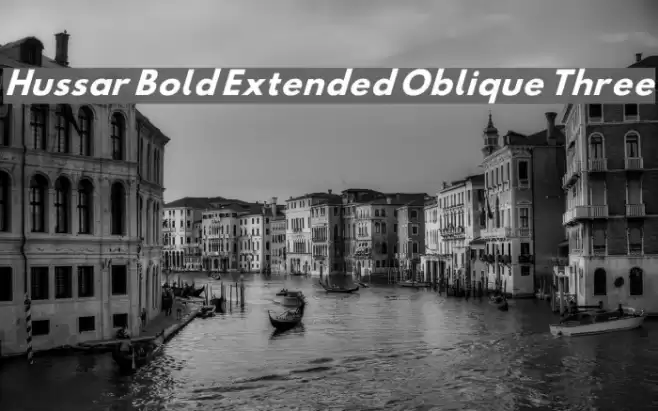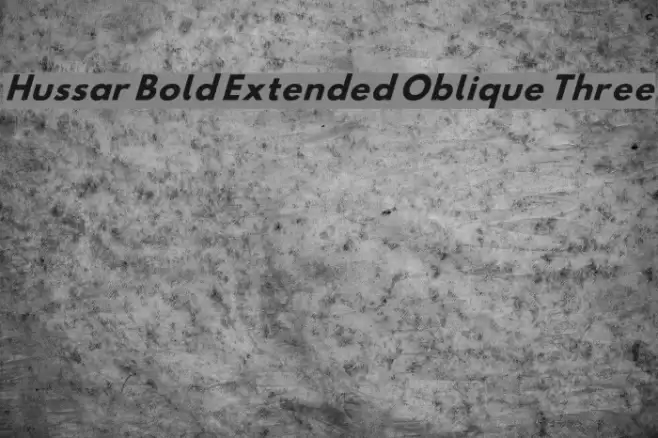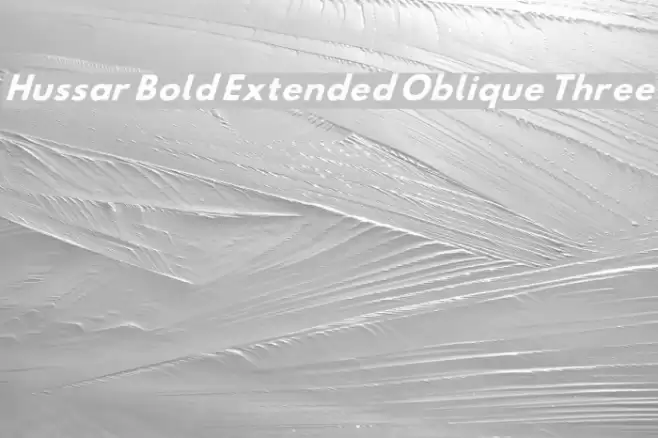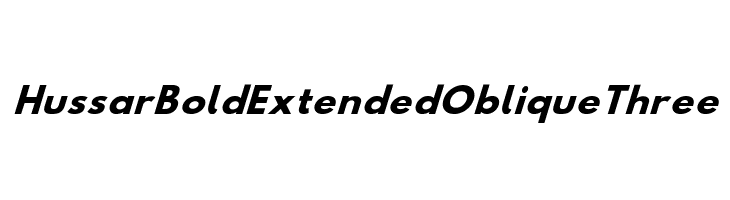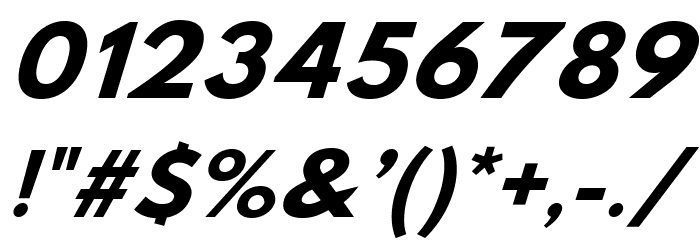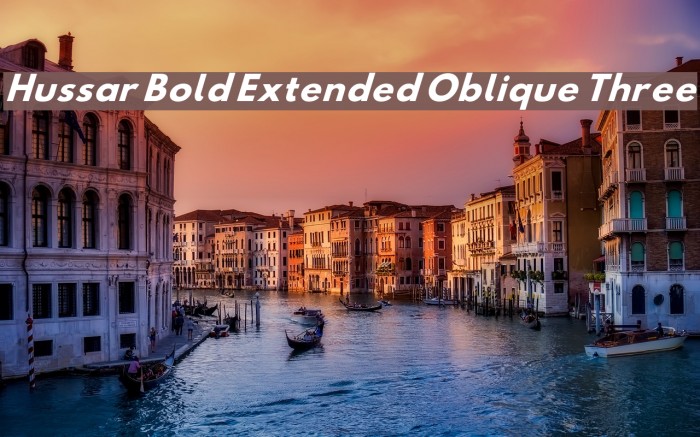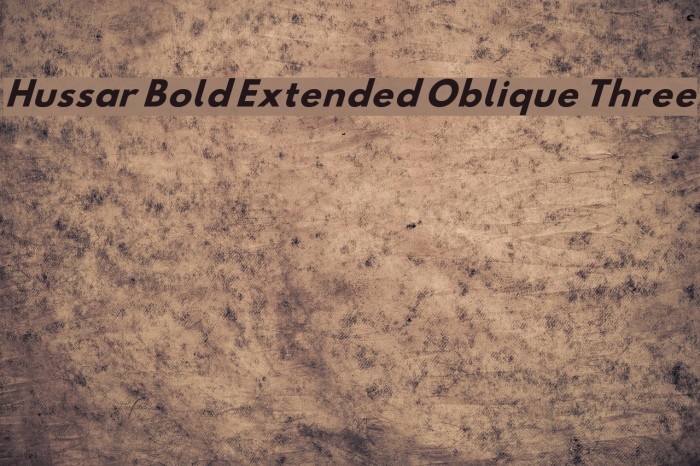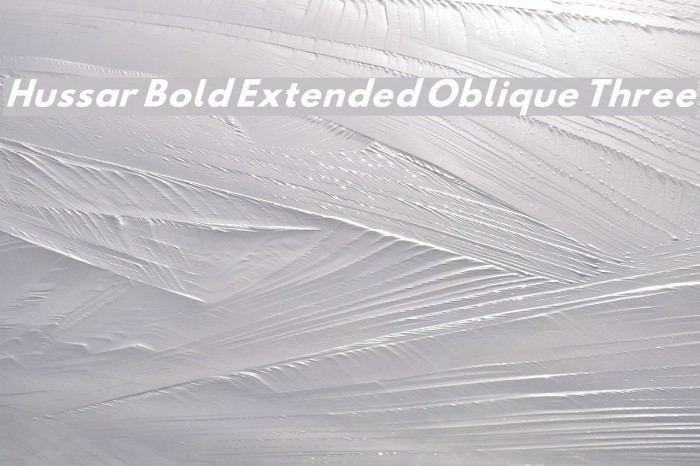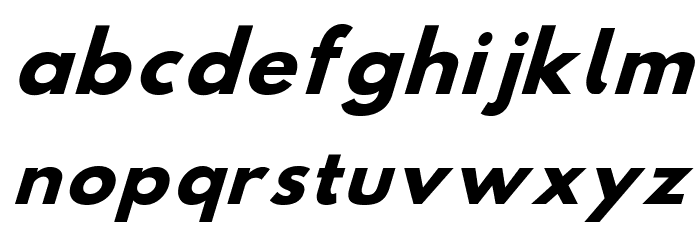
Hussar Bold Extended Oblique Three
This font features a bold and extended style with an oblique slant, giving it a dynamic and modern appearance. The uppercase letters are strong and assertive, while the lowercase letters maintain a consistent flow, enhancing readability. The numerals are clear and well-defined, making them suitable for various applications. Special characters are designed with the same boldness and slant, ensuring uniformity across all glyphs. The overall design is sleek and contemporary, making it ideal for projects that require a strong visual impact.
A bold, extended, and oblique font with a modern and dynamic style.
- Proposed Projects: Ideal for branding, advertising, headlines, and any project requiring a bold statement.
- Width: Expanded
- Use Case: Headlines, Logos, Branding